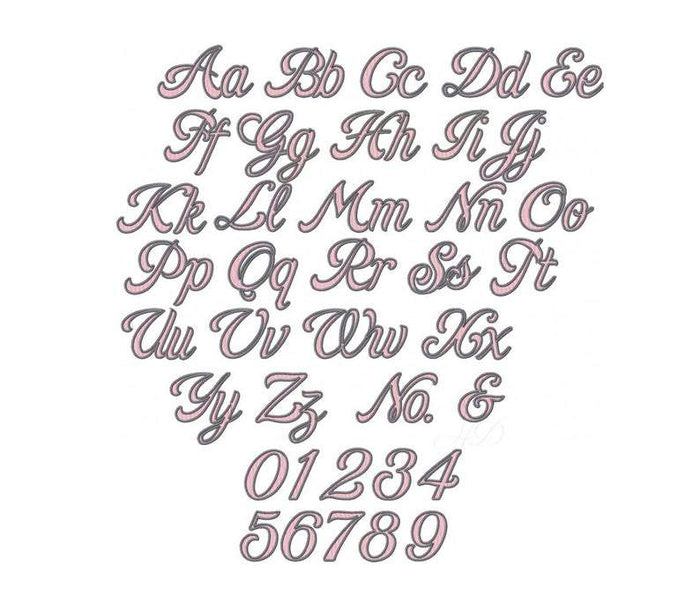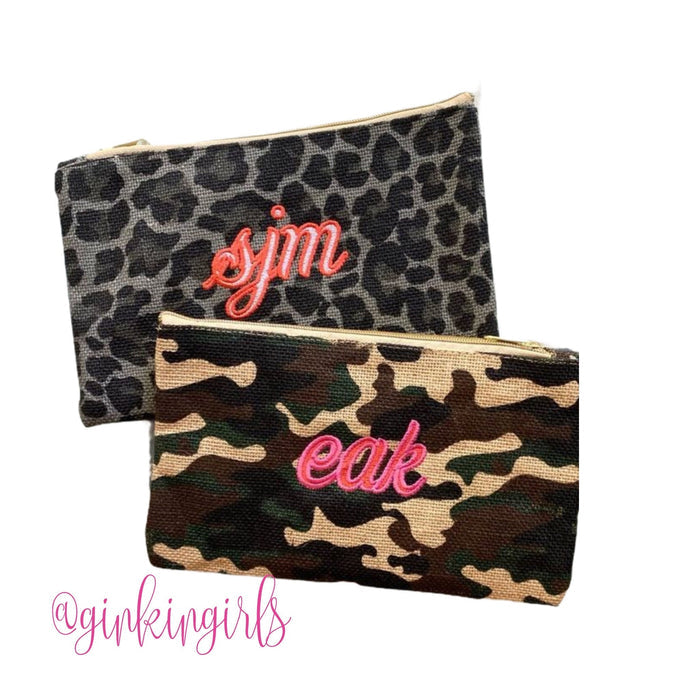
Sporty & Chic Embroidery Font Package - 5 Sizes
Introducing the Sporty & Chic Embroidery Font Package, a unique two-color font designed for crafters looking to add flair to their projects. This package includes both fill and contrasting satin outline stitches, featuring uppercase and lowercase letters A-Z, numbers 0-9, and the NO. Sign. Available in five sizes—2", 2.5", 3", 3.5", and 4"—this font is perfect for various applications.